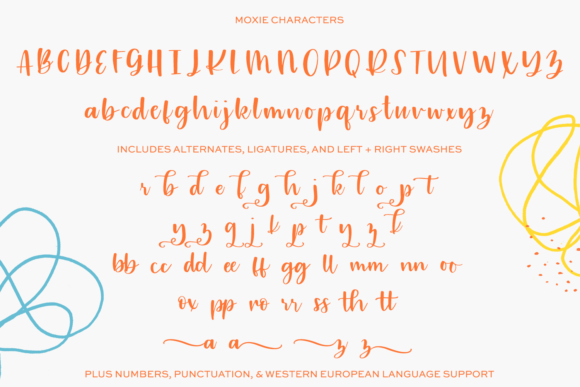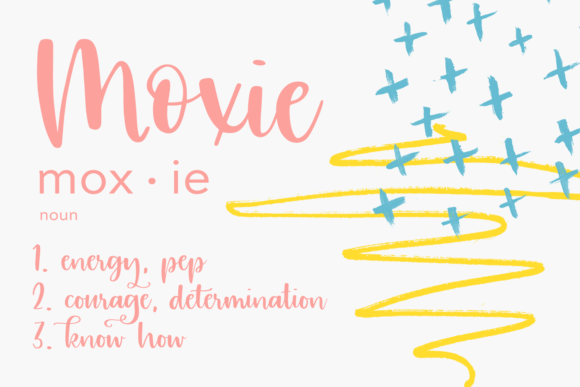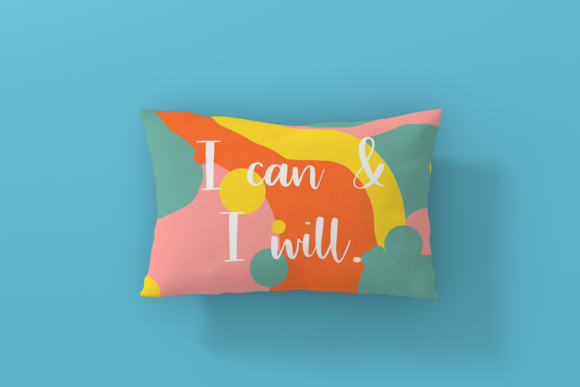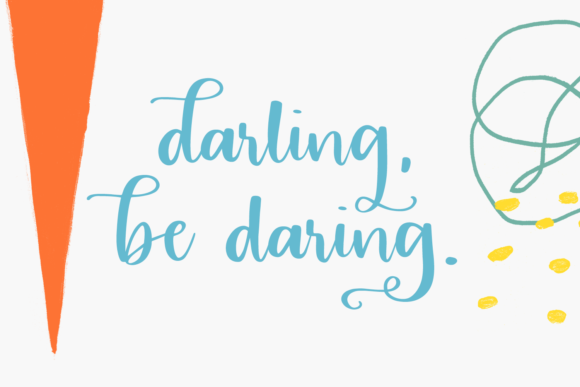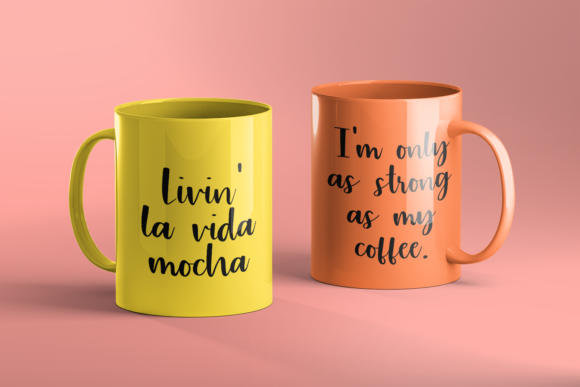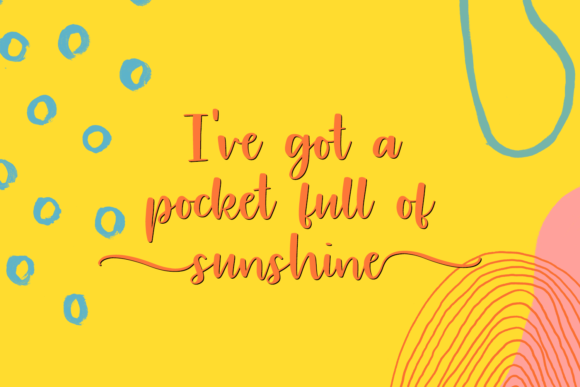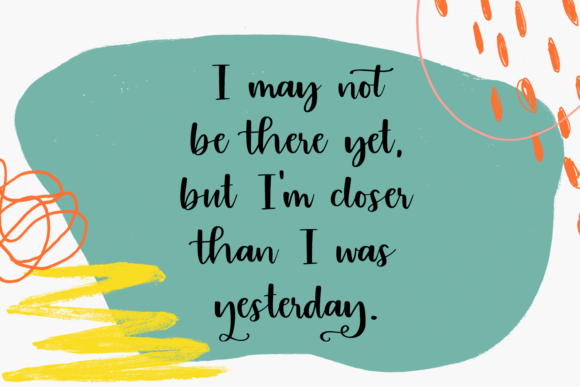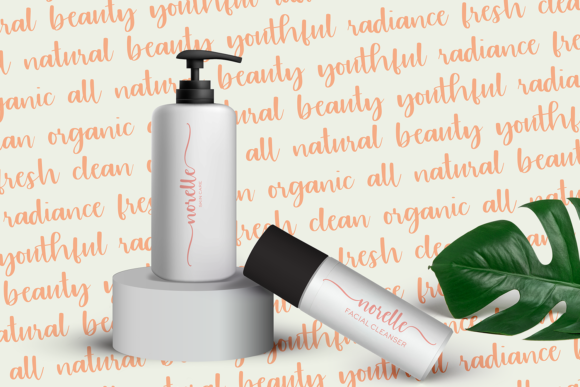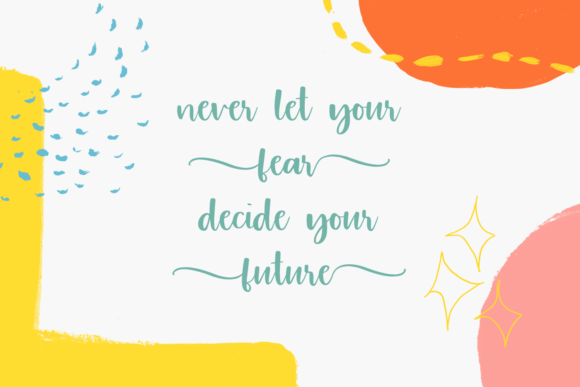
Moxie Font
About Moxie Font
Moxie feels fresh and dynamic, but also sincere. This fancy calligraphy font has a wide range of applications ranging from everyday crafts to branding and is guaranteed to add a whimsical touch to your next design.
This font is PUA encoded which means you can access all of the playful glyphs and swashes with ease! It also features a wealth of special features including alternate glyphs and ligatures.